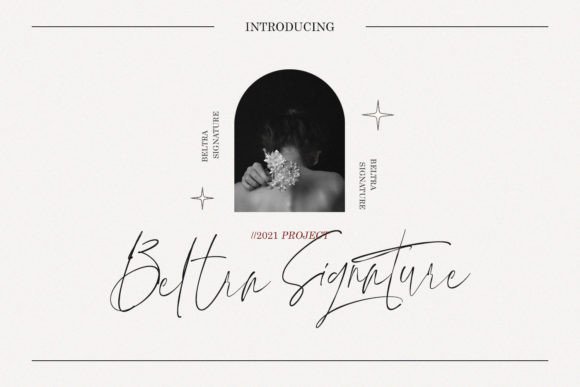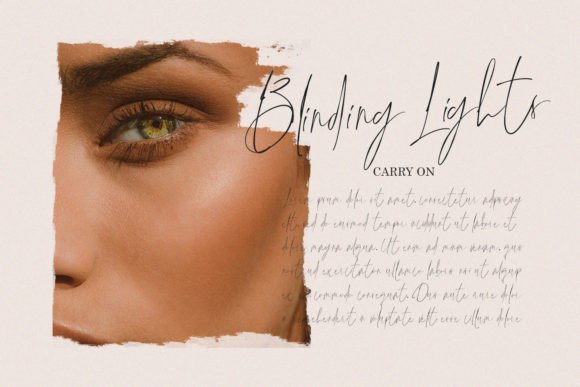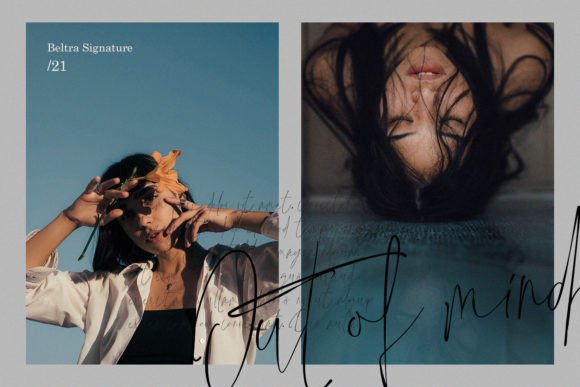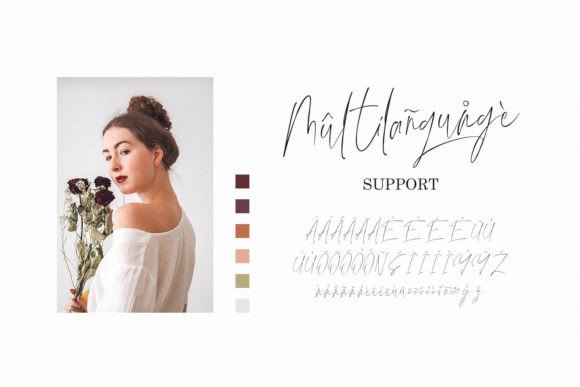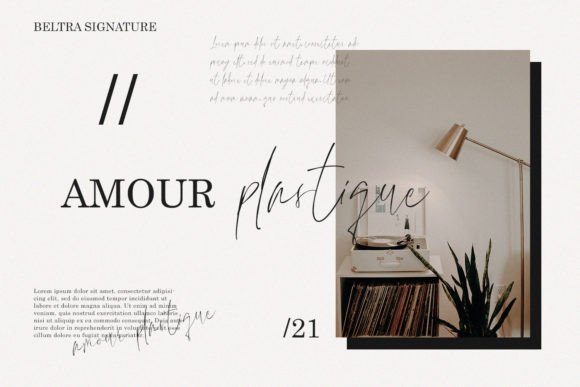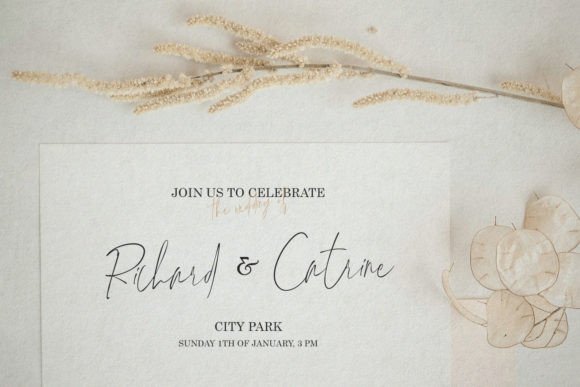
Beltra Signature Font: Elevate Your Designs with Elegance
In the world of typography, a signature font can make all the difference in creating a lasting impression. Introducing Beltra Signature, a modern and flowing handwritten font that brings elegance to the forefront of your designs. With its sophisticated and refined aesthetic, Beltra Signature is perfect for crafters and designers looking to add a touch of luxury to their projects.
The Essence of Beltra Signature
Beltra Signature is a carefully crafted font that exudes elegance and poise. Its flowing lines and curves create a sense of movement, making it ideal for designs that require a touch of sophistication. The font’s modern take on traditional handwriting makes it versatile and suitable for a wide range of applications, from wedding invitations to event posters, magazines, and more.
Whether you’re a designer, crafter, or DIY enthusiast, Beltra Signature is the perfect addition to your typography collection. The font’s unique and artistic style makes it perfect for:
- Wedding invitations and stationery: Add a touch of romance and elegance to your wedding designs with Beltra Signature.
- Event posters: Create eye-catching posters for conferences, festivals, and other events with this stunning font.
- Magazines and editorials: Use Beltra Signature to add a touch of sophistication to your magazine layouts and editorials.
- Branding and packaging: Elevate your brand’s visual identity with this beautiful and elegant font.
Key Features of Beltra Signature
Beltra Signature boasts a range of features that make it a standout font:
- Modern and flowing handwritten design
- Elegant and sophisticated aesthetic
- Perfect for designs that require a touch of luxury
- Versatile and suitable for a wide range of applications
- Easy to read and visually appealing
Why Choose Beltra Signature?
In a world where typography plays a crucial role in design, Beltra Signature offers a unique and refreshing take on traditional handwriting. Here are just a few reasons why you should choose Beltra Signature for your next project:
- Elegance and sophistication: Beltra Signature brings a level of elegance and sophistication to your designs that’s hard to match.
- Versatility: The font’s modern design makes it suitable for a wide range of applications, from formal events to creative projects.
- Easy to use: Beltra Signature is easy to read and works beautifully in a variety of contexts, making it a joy to work with.
Get Creative with Beltra Signature
Beltra Signature is a stunning modern handwritten font that brings elegance and sophistication to the forefront of your designs. With its flowing lines, curves, and refined aesthetic, it’s perfect for crafters and designers looking to add a touch of luxury to their projects. Whether you’re creating wedding invitations, event posters, or magazines, Beltra Signature is the perfect choice. So why wait? Download Beltra Signature today and take your designs to the next level!